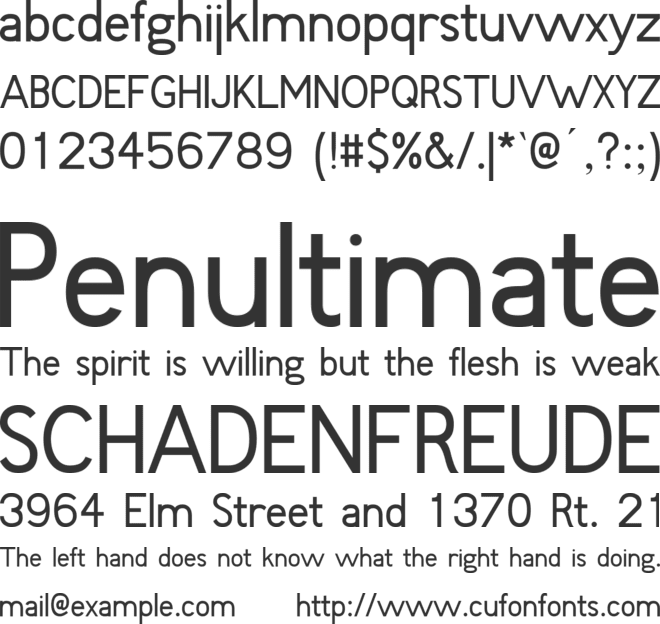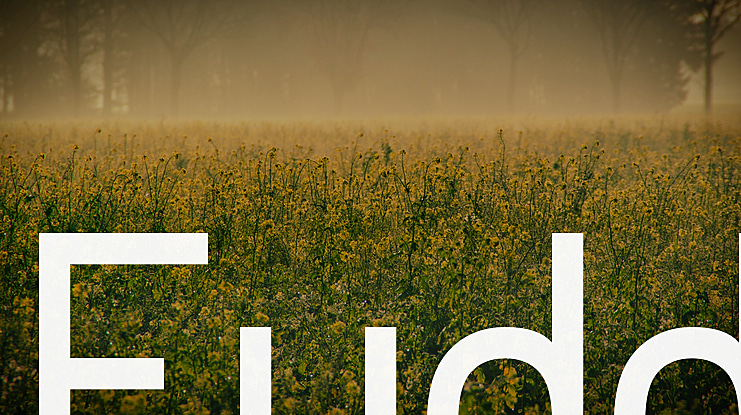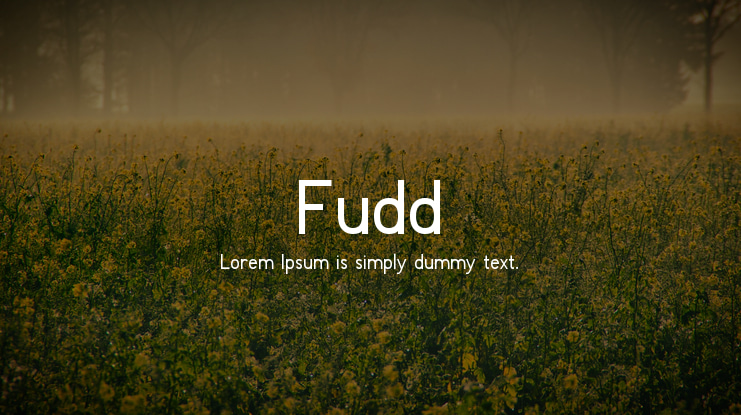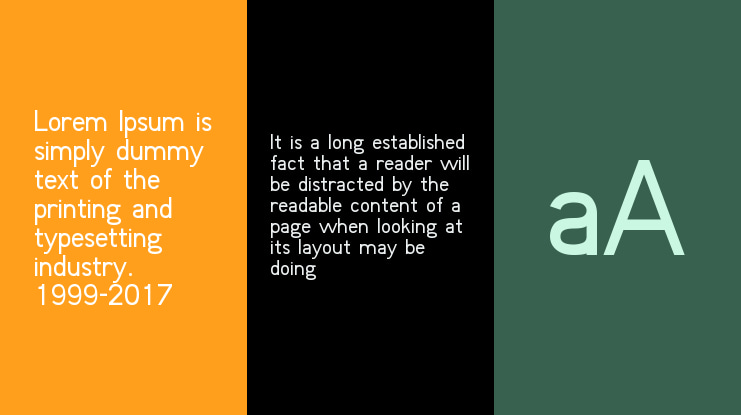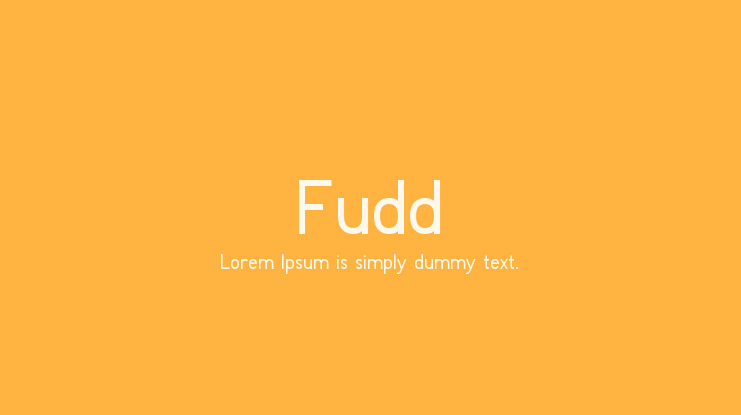
Fudd Font Family
This isn't the first "serious" body text type font I've started, but
it is the first one that I've finished. It has an even stroke
weight, no contrast. It now has hinting, an italic version, and
several letters have been retouched.